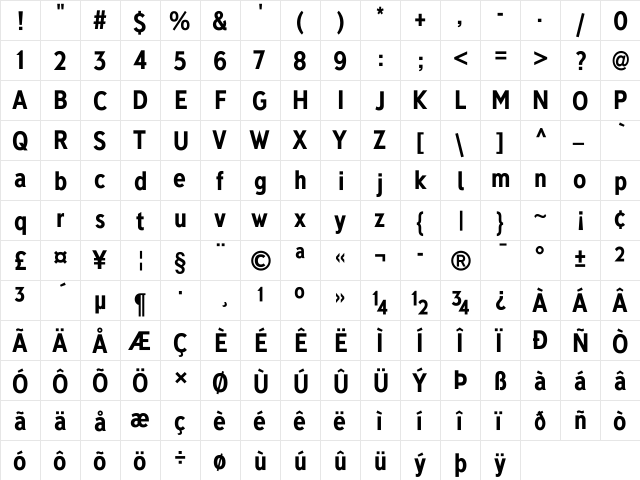
Deansgate Condensed Bold
| Designer | Keith Bates |
| Copyright | Deansgate Condensed Bold 015 K-Type https://www.k-type.com K-Type DEANSGATE is a full typeface developed from monoweight lettering used for Manchester street nameplates and distinguished by a pointy Z and pointed middle vertices on M and W. |
Design Context for Deansgate Condensed Typeface
Deansgate Condensed is a composed and adaptable typeface that performs quietly and consistently across a wide range of design contexts. The heavy weight commands attention and anchors typographic hierarchies. Its narrow stance lets it pack a punch even in space-constrained designs.